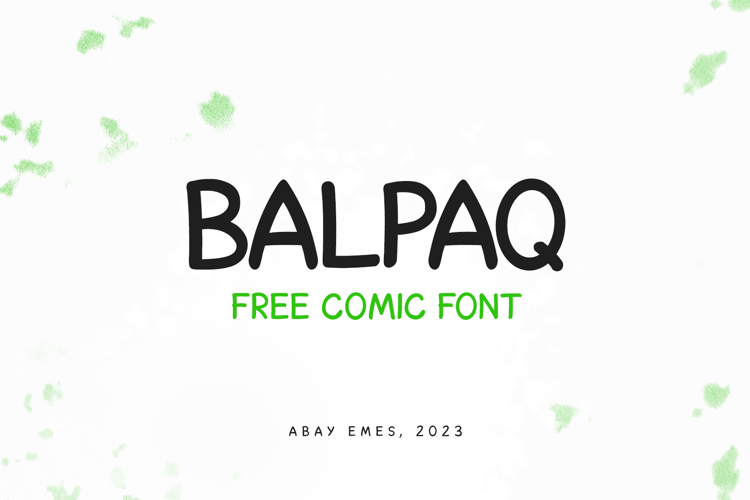
Balpaq Font
Balpaq is a comic book font made by a designer from Kazakhstan. The font is perfect for anything from quotes and packaging designs to greeting cards and children's books. Add a playful and cheerful vibe to your designs with Balpaq font.